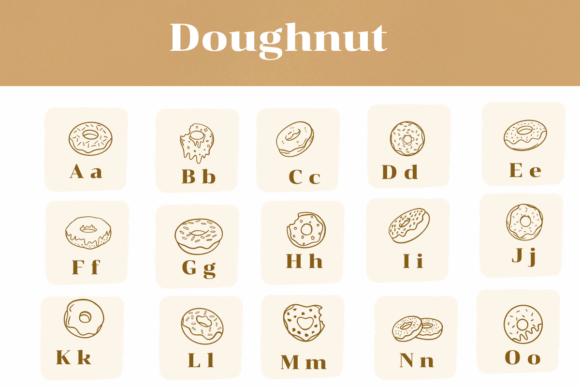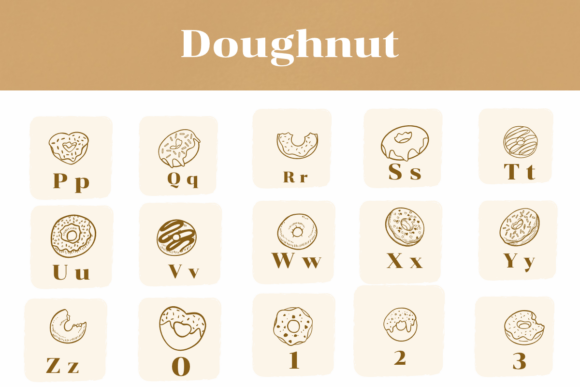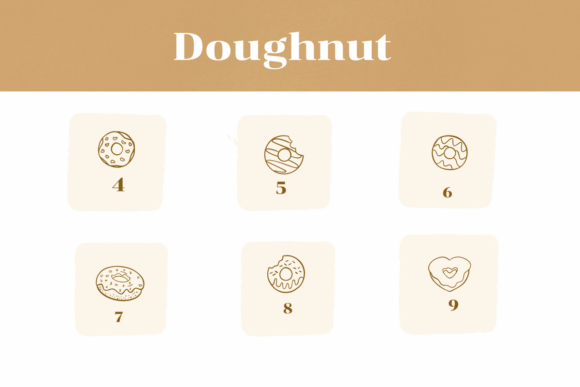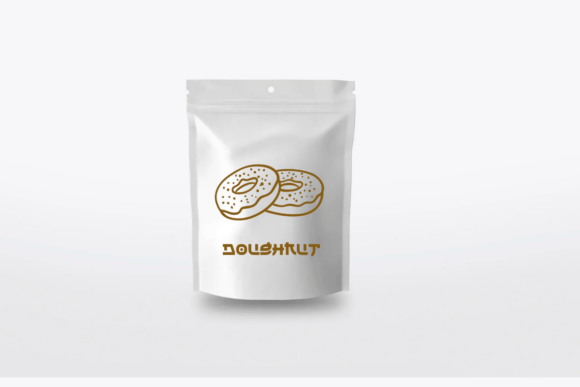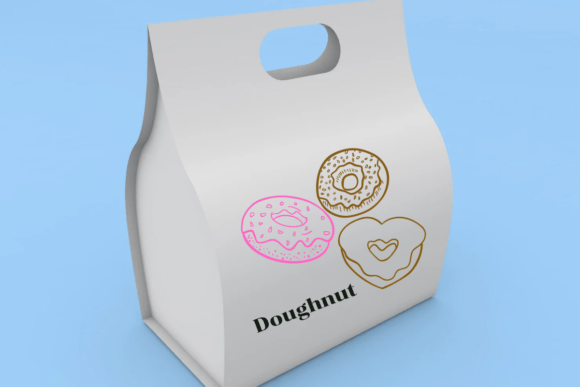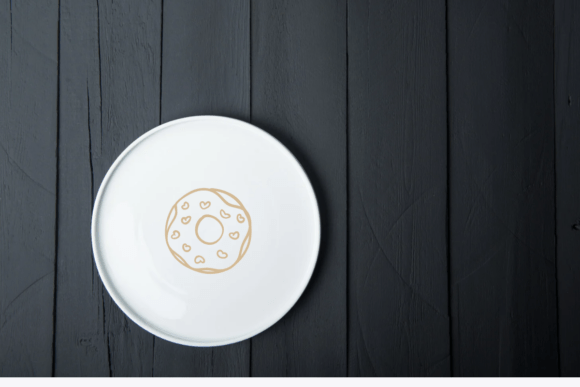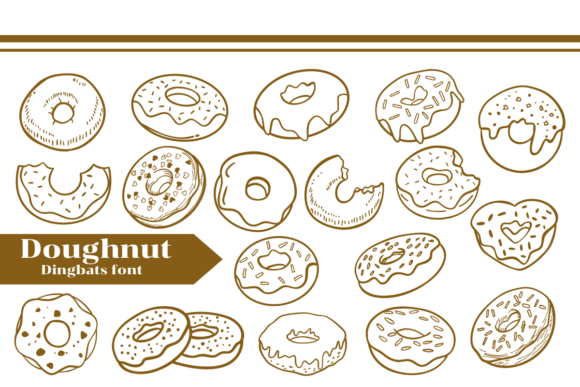
Doughnut Font: The Sweetest Addition to Your Design Projects
Are you a designer, crafter, or DIY enthusiast looking for a unique and playful font to add a touch of whimsy to your creative projects? Look no further than the Doughnut Font, a delightful dingbats font that’s sure to satisfy your sweet tooth. In this article, we’ll dive into the world of Doughnut Font and explore its features, uses, and benefits.
What is Doughnut Font?
Doughnut Font is a dingbats font that features adorable doughnut-themed characters, including various types of doughnuts, toppings, and utensils. This font is perfect for anyone who loves baking, cooking, or simply enjoys the nostalgia of doughnuts. With its fun and colorful design, Doughnut Font can add a pop of personality to any project.
Features of Doughnut Font
- Deliciously designed characters: Each character in the Doughnut Font is carefully crafted to resemble a doughnut, from classic glazed to creative toppings.
- Variety of characters: The font includes a range of characters, including letters, numbers, punctuation marks, and special symbols, all designed with a doughnut theme.
- Scalable: The font is designed to be scalable, ensuring it looks great in any size or resolution.
Uses for Doughnut Font
Doughnut Font is incredibly versatile and can be used in a wide range of creative projects, including:
- Wedding invitations: Add a touch of sweetness to your wedding stationery with doughnut-themed invitations, RSVP cards, and more.
- DIY and crafts: Use Doughnut Font to create custom labels, signs, and decorations for your DIY projects, such as homemade treats, party favors, and more.
- Logos and branding: Create a memorable logo or brand identity with Doughnut Font, perfect for bakeries, cafes, food trucks, and other businesses in the food industry.
- Social media graphics: Add a fun and playful touch to your social media graphics, such as Instagram posts, Facebook covers, and more.
- Party decorations: Use Doughnut Font to create custom banners, garlands, and other decorations for birthday parties, baby showers, and other celebrations.
Benefits of Using Doughnut Font
- Adds a personal touch: Doughnut Font allows you to add a personal and unique touch to your designs, setting them apart from more generic fonts.
- Evokes emotions: The playful and whimsical design of Doughnut Font is sure to evoke feelings of joy and nostalgia in your audience.
- Versatile: The font’s versatility means you can use it in a wide range of projects, from digital designs to print materials.
- Easy to read: Despite its playful design, Doughnut Font is easy to read, making it perfect for use in titles, headings, and other design elements.
Tips for Using Doughnut Font
- Mix and match: Combine Doughnut Font with other fonts to create a unique and visually appealing design.
- Experiment with colors: Play around with different colors and textures to add depth and interest to your designs.
- Use it sparingly: While Doughnut Font is fun and playful, it’s best used sparingly to avoid overwhelming your design.
In conclusion, Doughnut Font is a sweet and versatile font that’s perfect for designers, crafters, and DIY enthusiasts looking to add a touch of whimsy to their creative projects. With its deliciously designed characters, ease of use, and versatility, Doughnut Font is sure to become a favorite in your design toolkit.